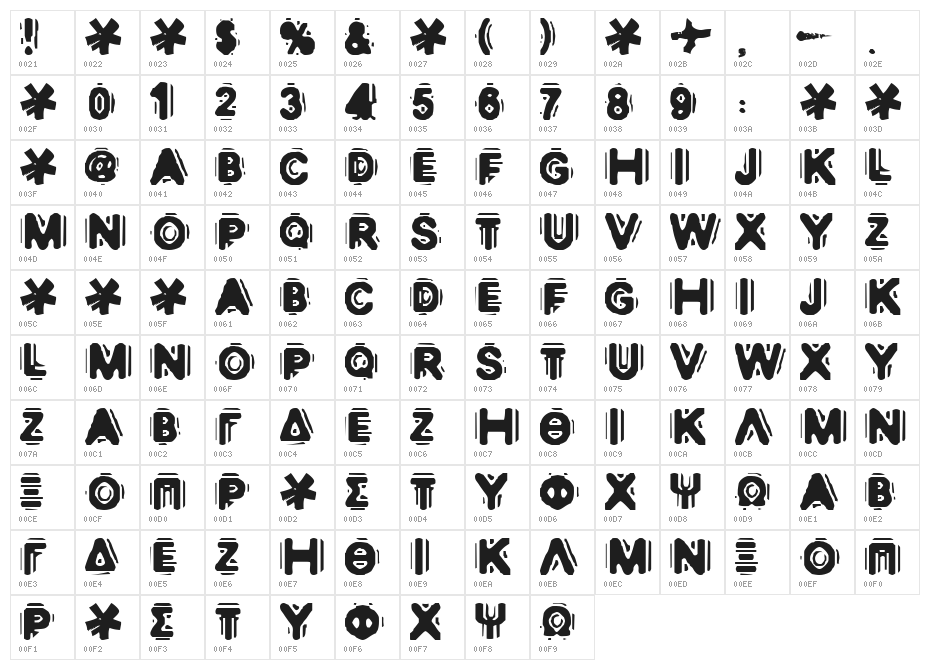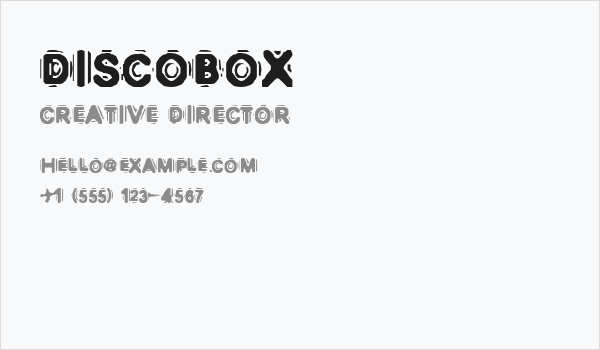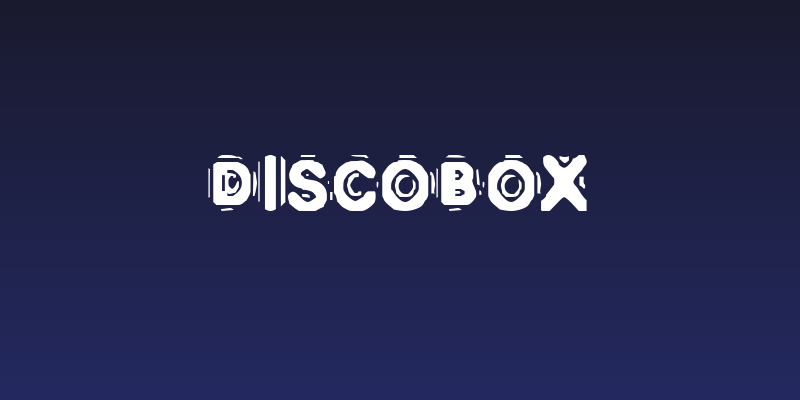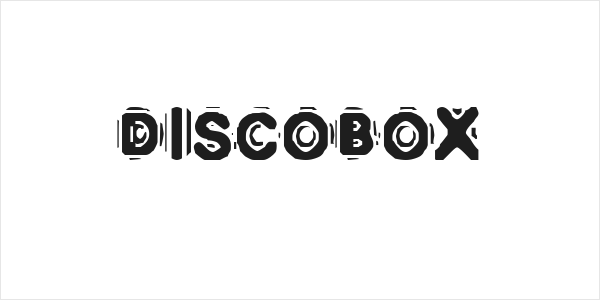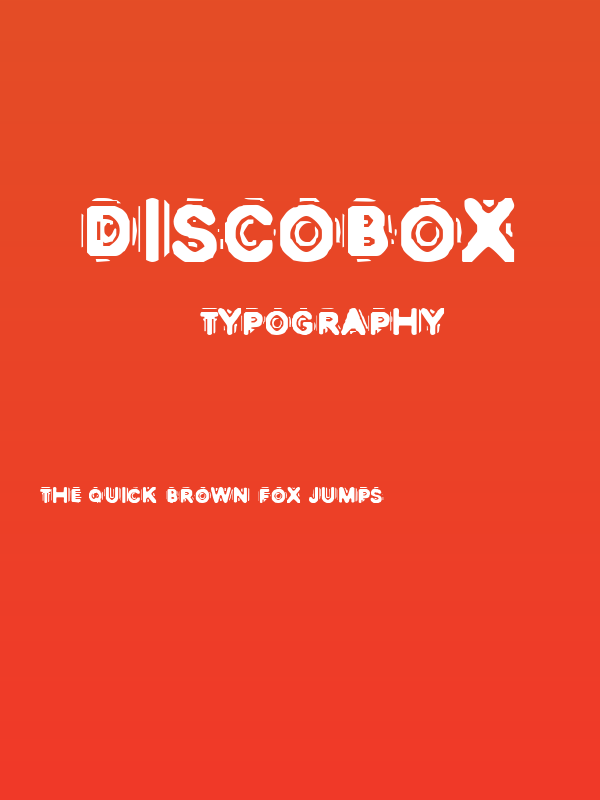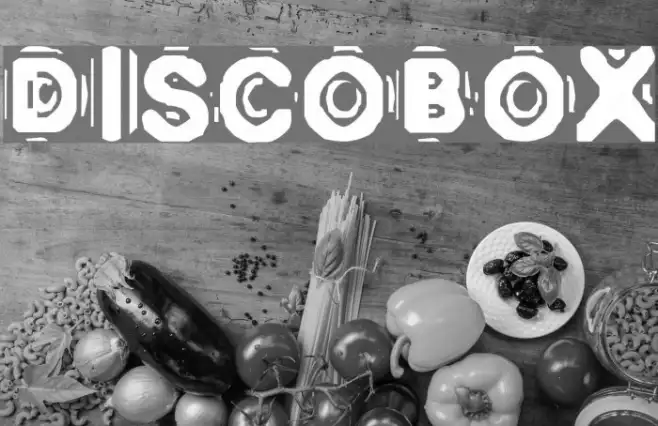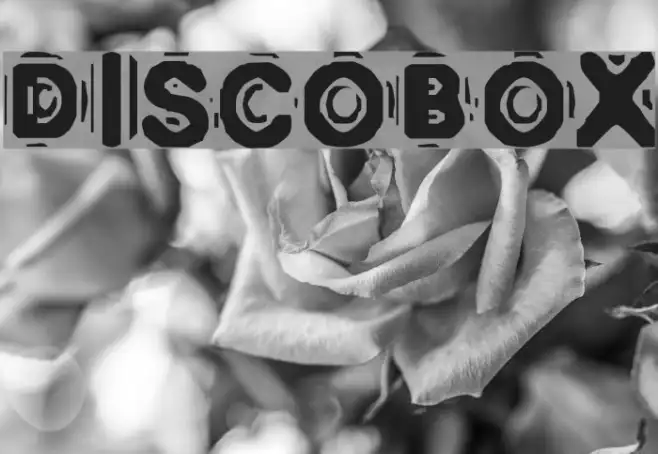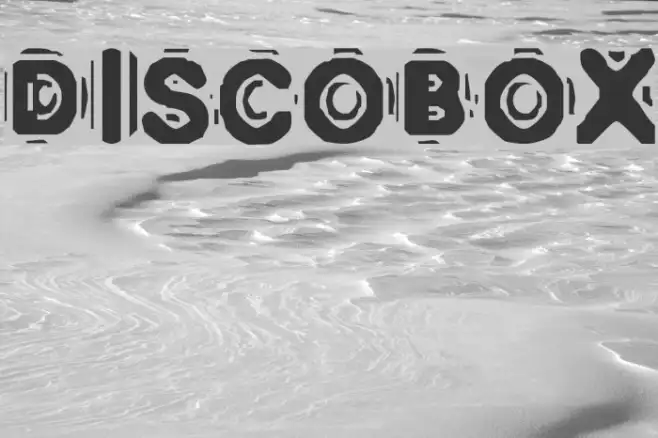
DISCOBOX Font
DISCOBOX Description
This font features a bold and dynamic style with a distinct retro flair, reminiscent of the vibrant disco era. The characters are heavily stylized with thick strokes and unique cut-out patterns that create a sense of movement and rhythm. The uppercase and lowercase letters maintain a consistent design, while the numerals and special characters complement the overall aesthetic. The font's playful and energetic appearance makes it ideal for projects that require a touch of nostalgia and excitement.
| Proposed Projects | Perfect for music event posters, retro-themed branding, album covers, and creative advertising campaigns. |